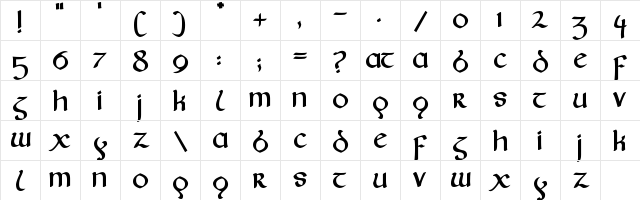
Fairies Regular Font Preview
Fairies Regular
Design Context for Fairies Typeface
Fairies is a composed and adaptable typeface that performs quietly and consistently across a wide range of design contexts.